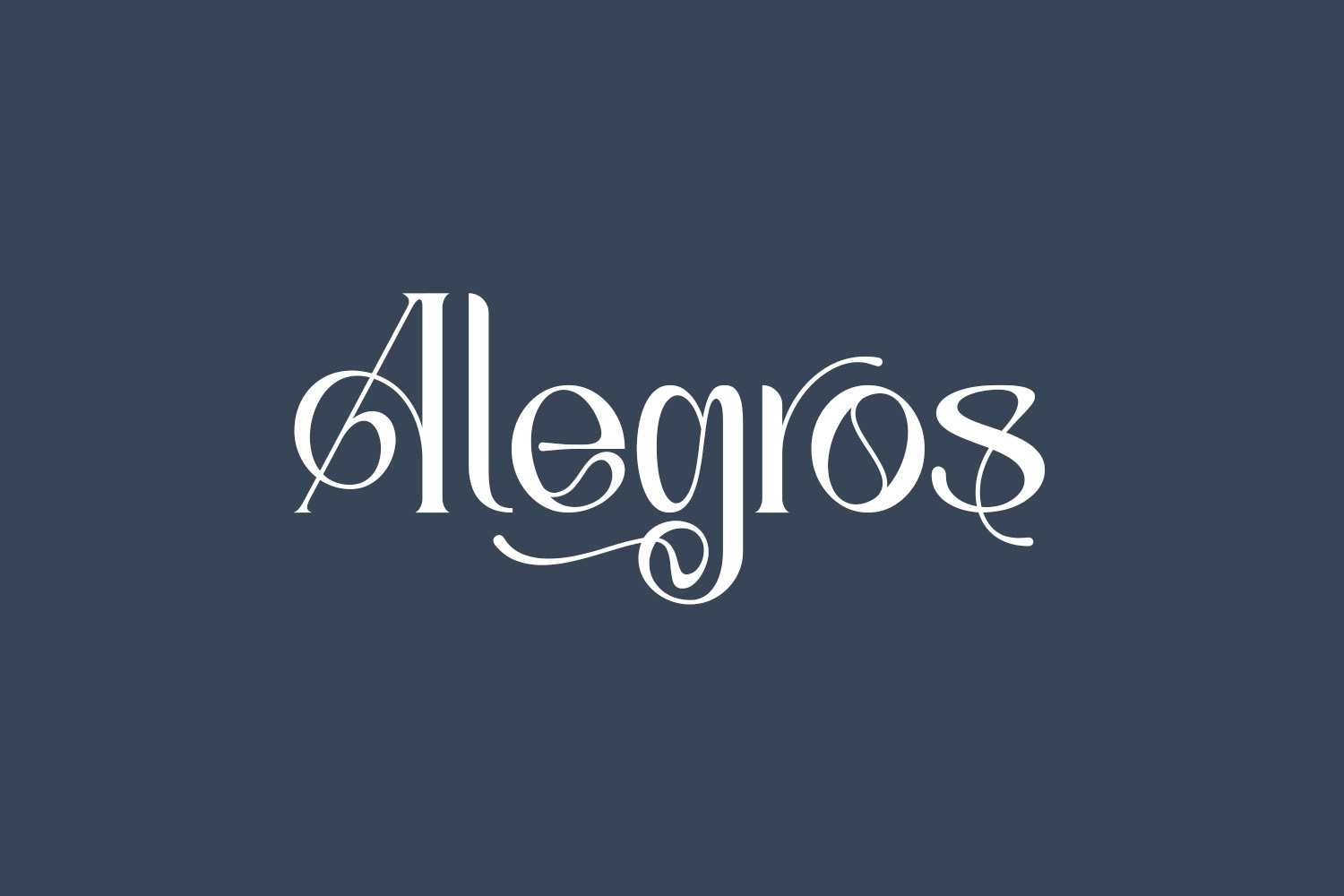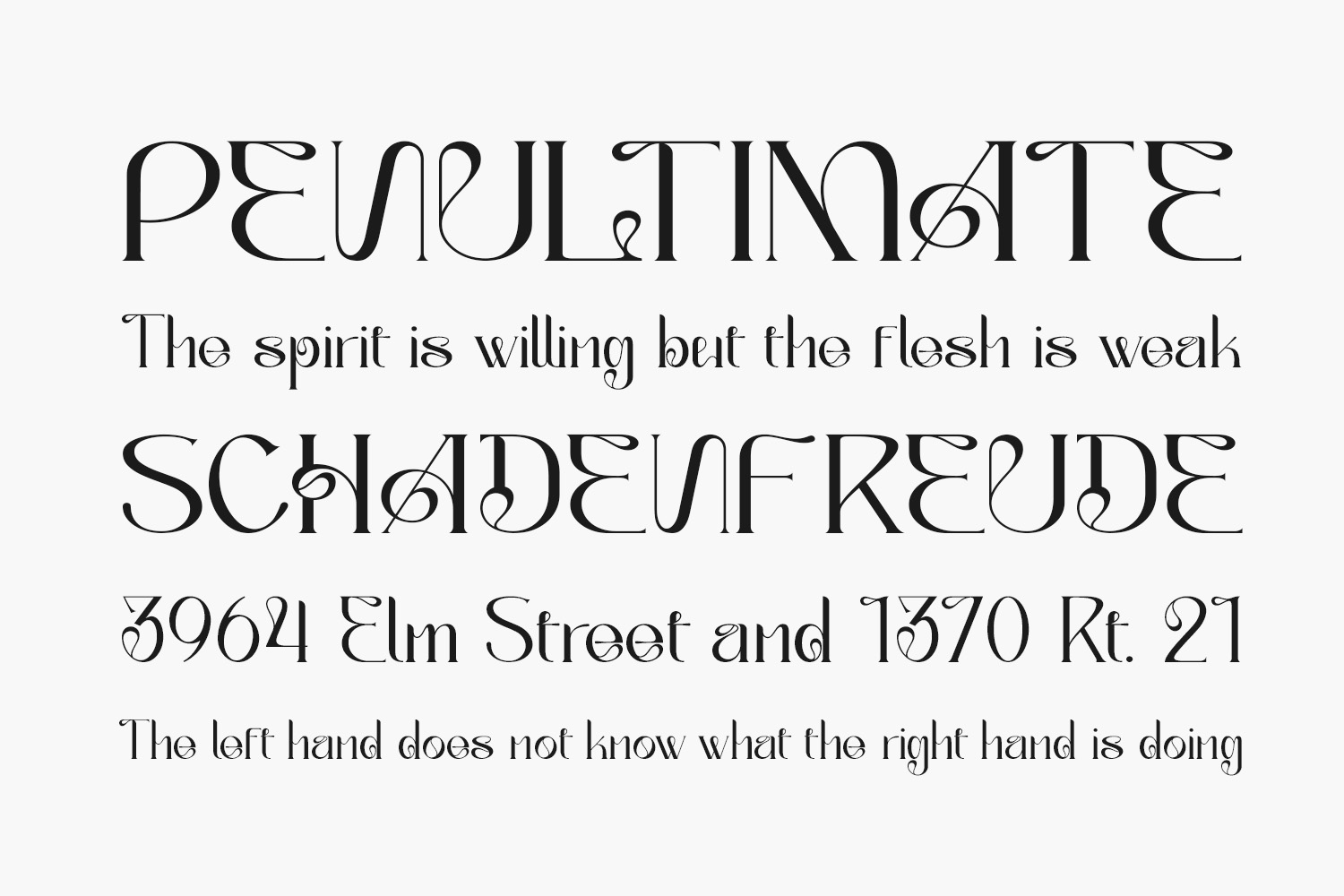
Experience the sophistication of Alegros Free Font, a stylish and refined serif font. Its clean and neat design makes it suitable for a diverse range of projects. This incredibly versatile font enhances a wide array of designs, elevating them to new heights. Complete with alternates and ligatures, Alegros allows you to create the perfect typography design by combining various elements. Alegros Free Font is free for personal use only. Please purchase the full version for commercial use.